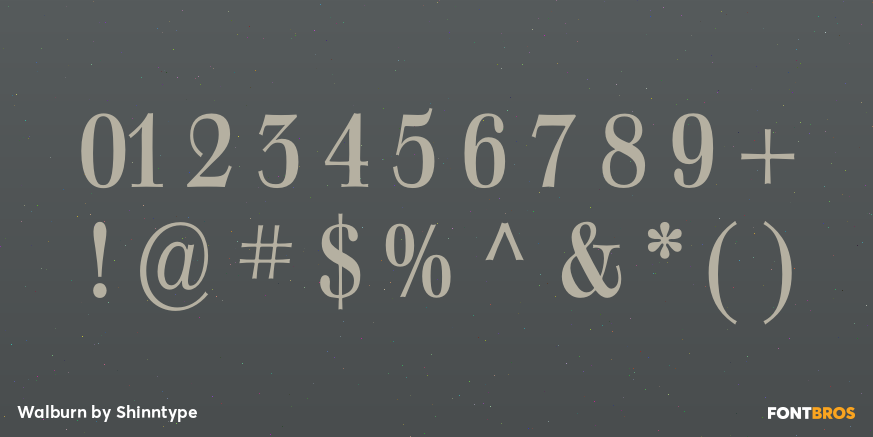
Walburn
Walburn is an adaptation of a typeface by Erich Walbaum, c.1800. It was originally suggested as a headline face by newspaper designer Tony Sutton, and subsequently developed for Canada's national paper, The Globe and Mail. It has narrow serifs and sidebearings, for a tight fit; and a finely-detailed, stylized finish to add visual interest.
The faux finish discreetly mimics the look of letterpress typography; it is an effect that can be controlled, thanks to the variety of fonts. While the fonts are mainly intended for display usage, the Fine styles have smaller details, narrower serifs, and a tighter fit ? for use at larger sizes.